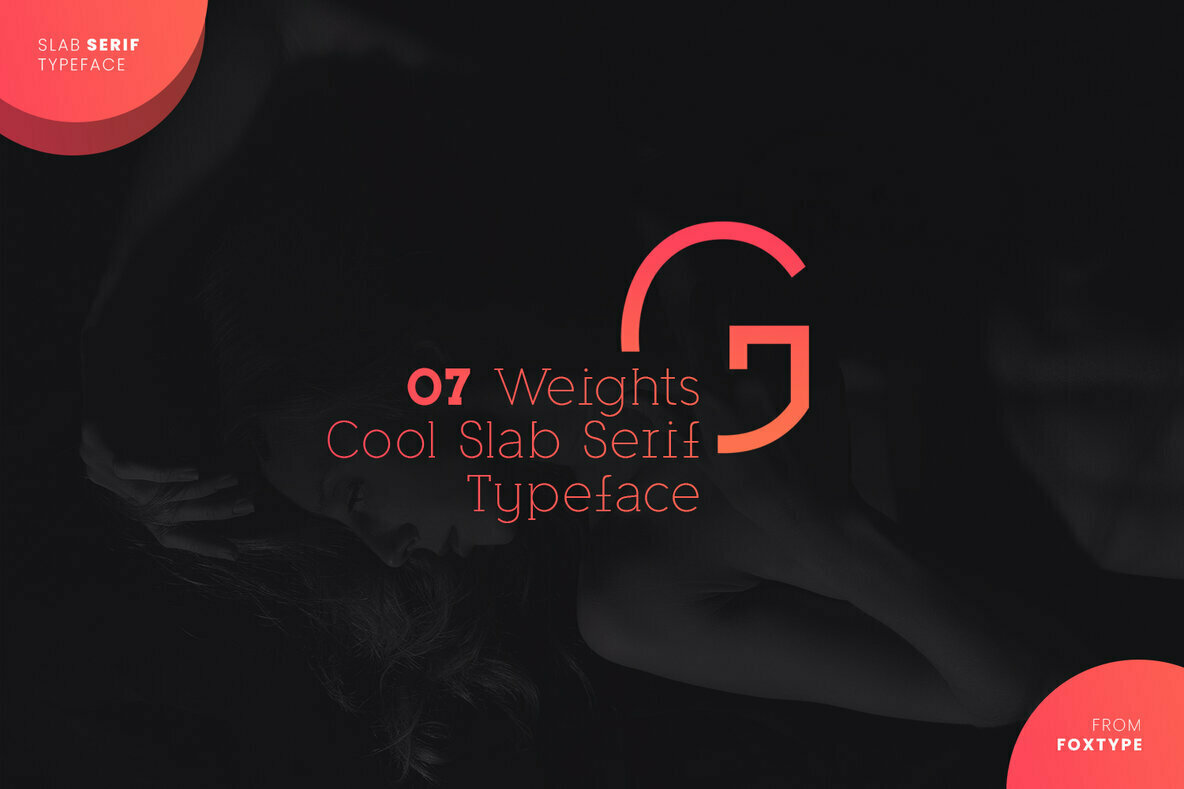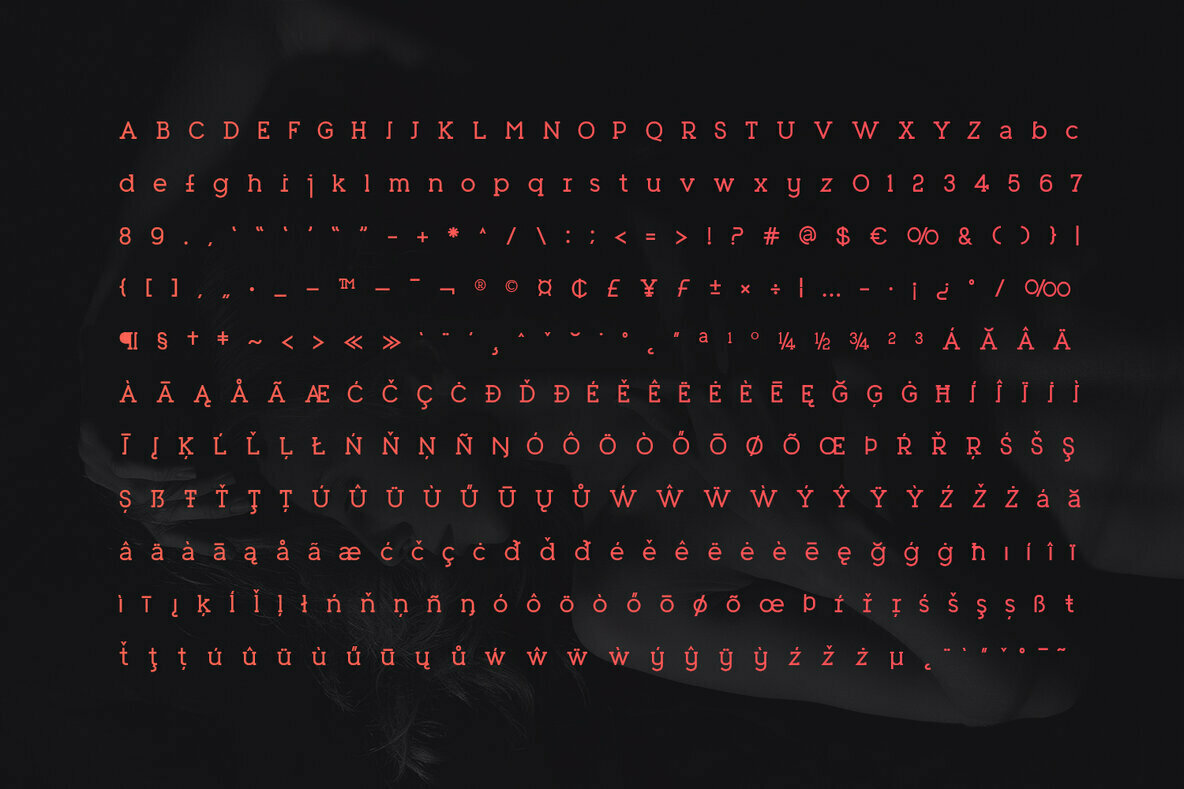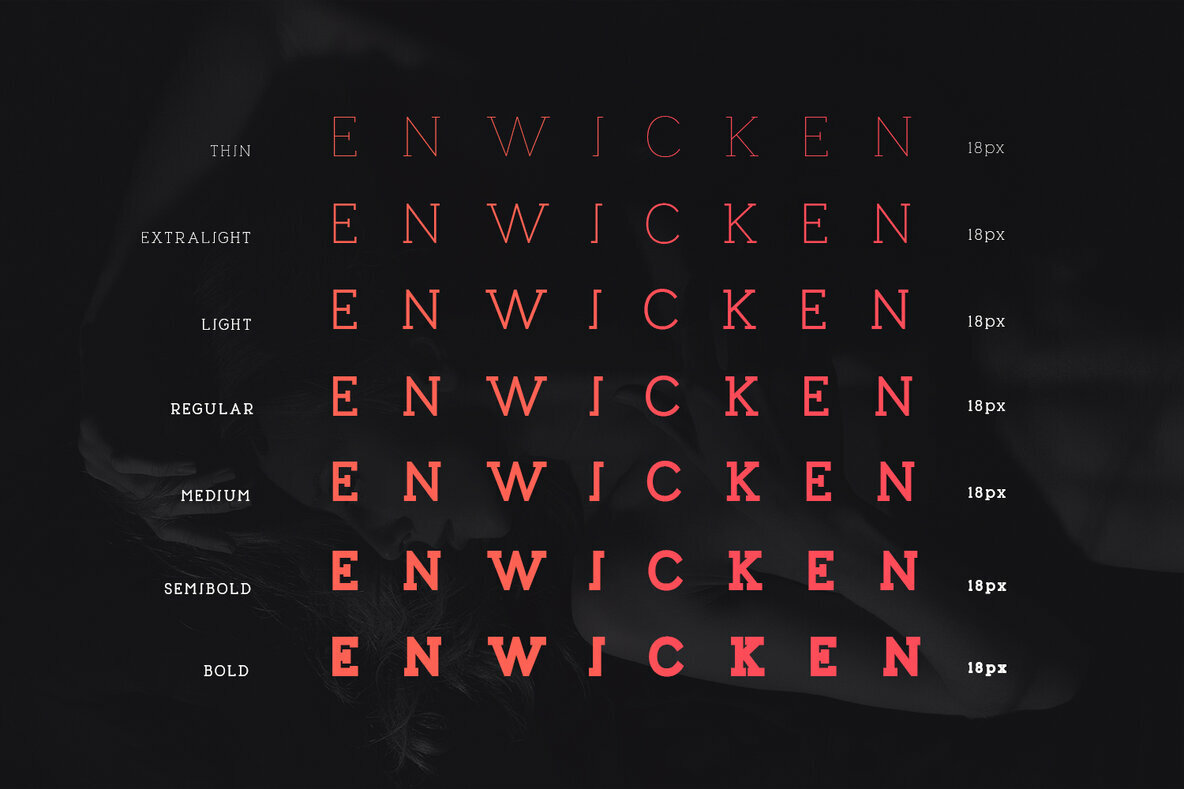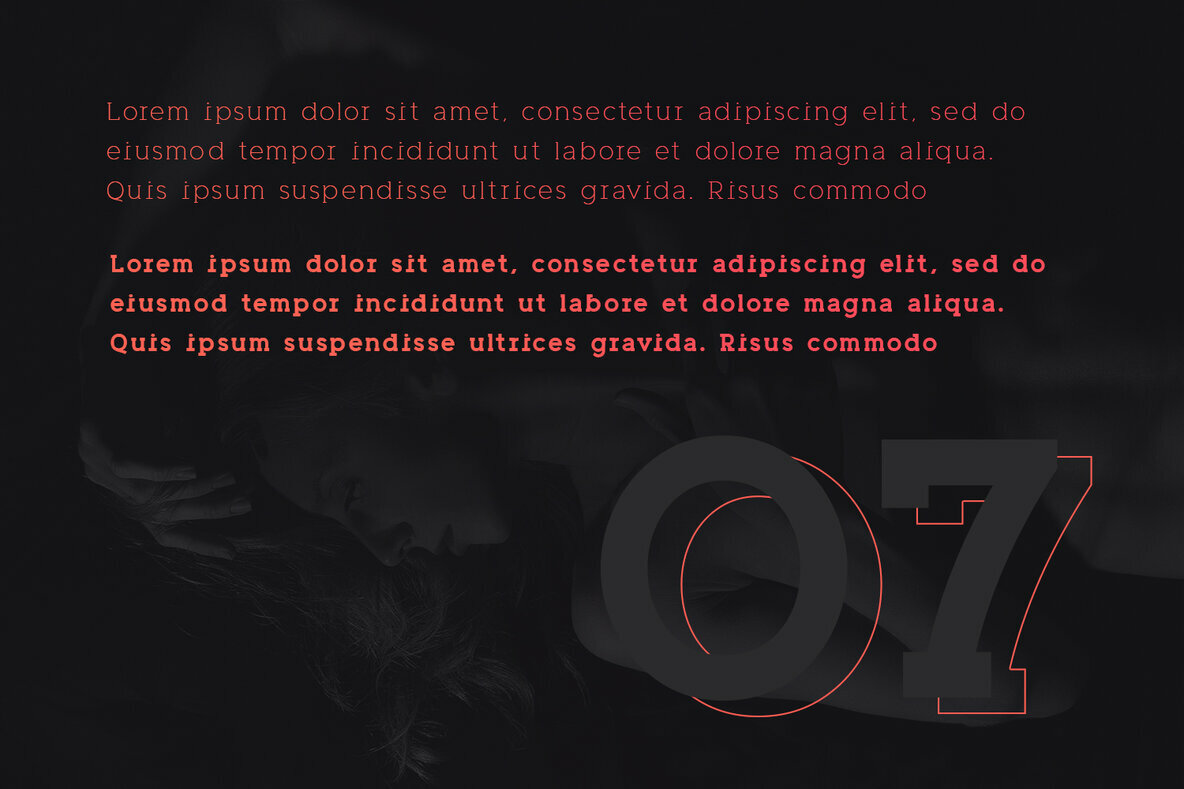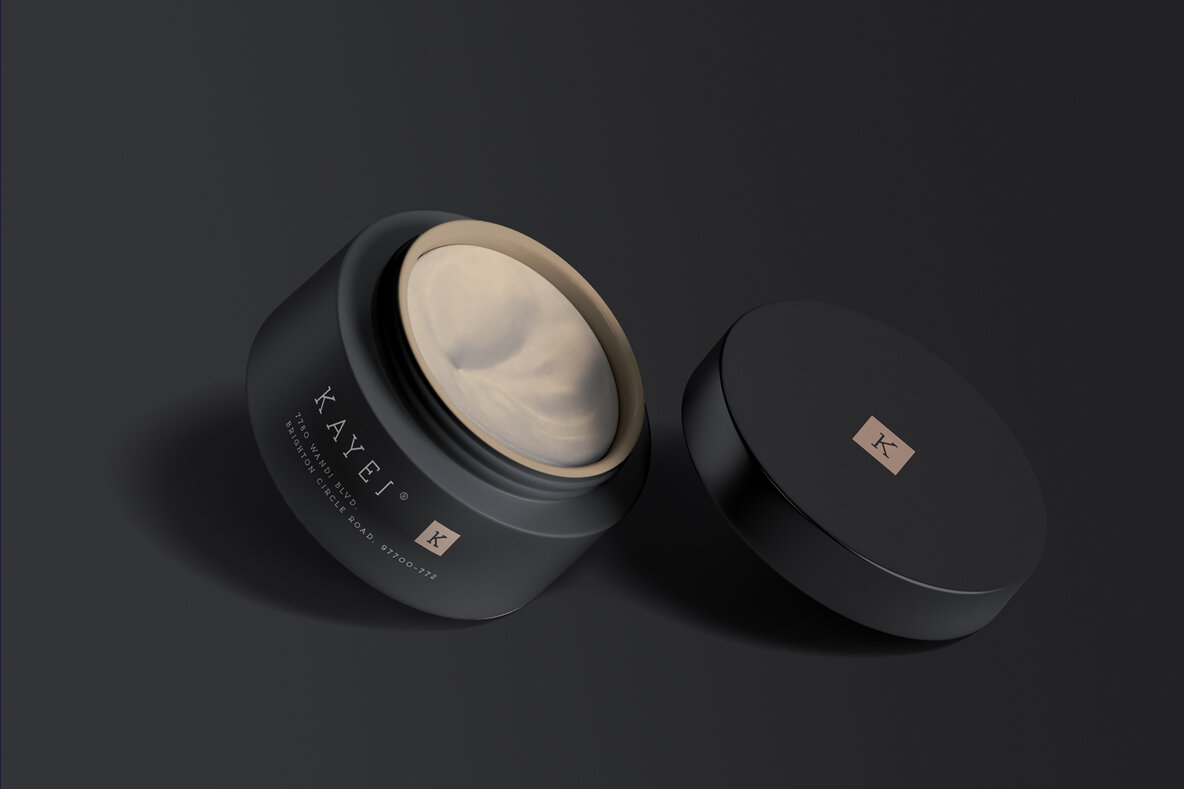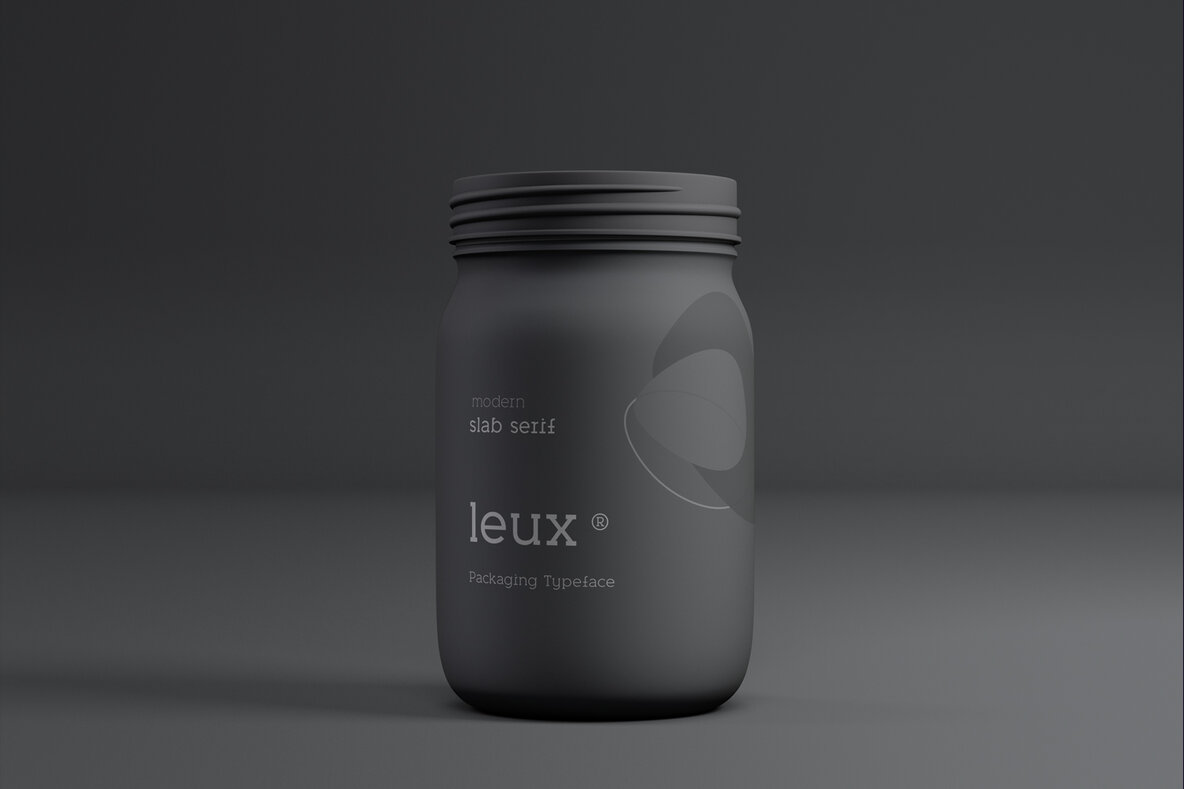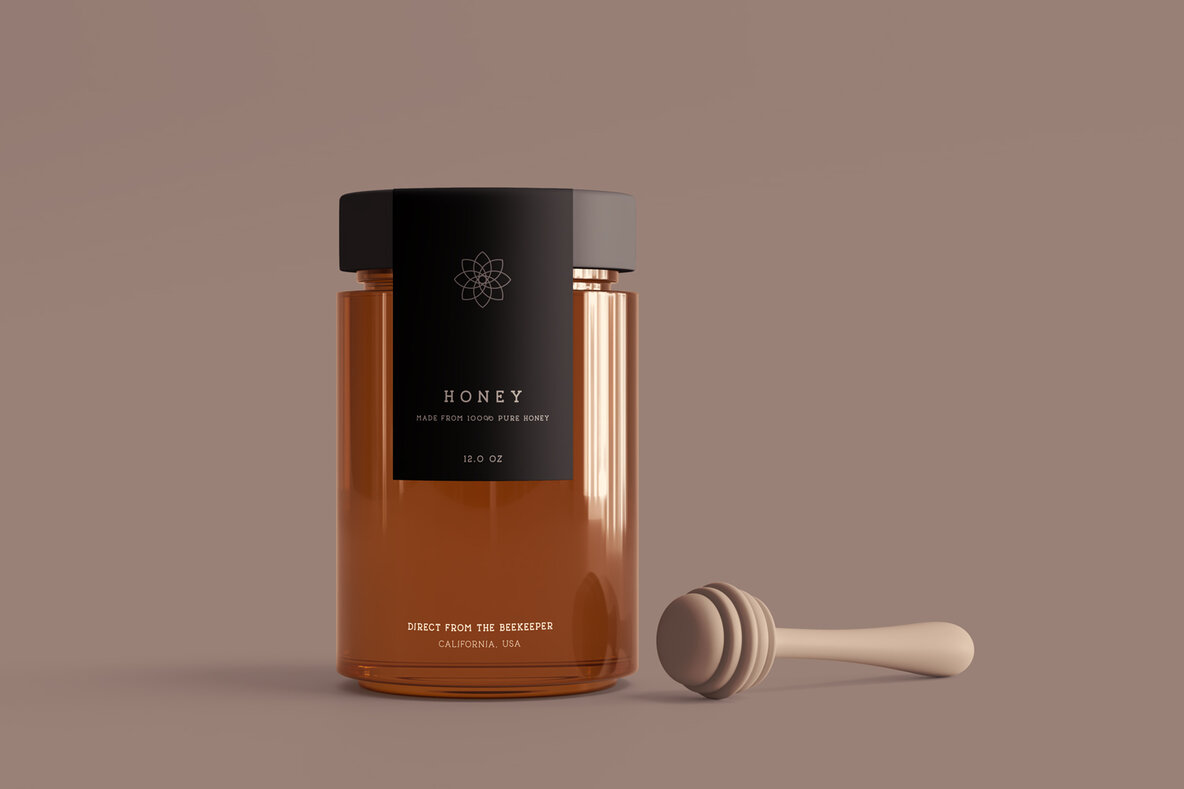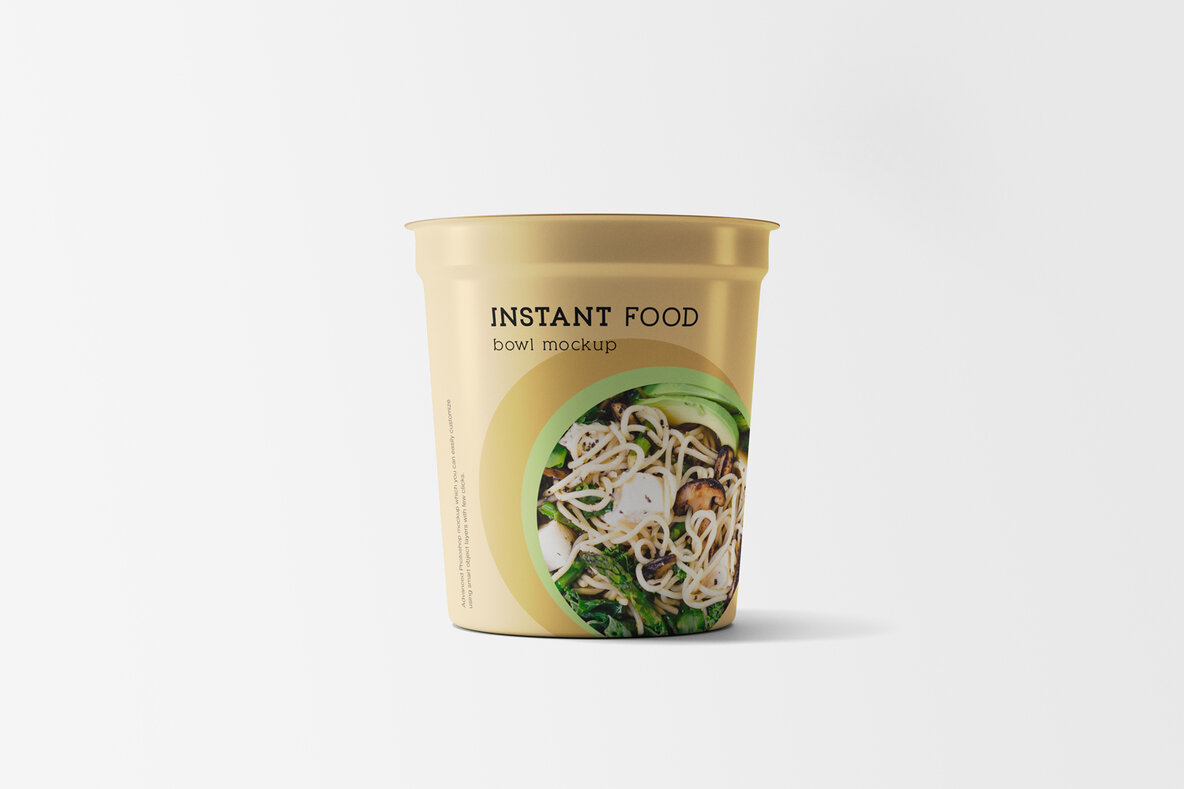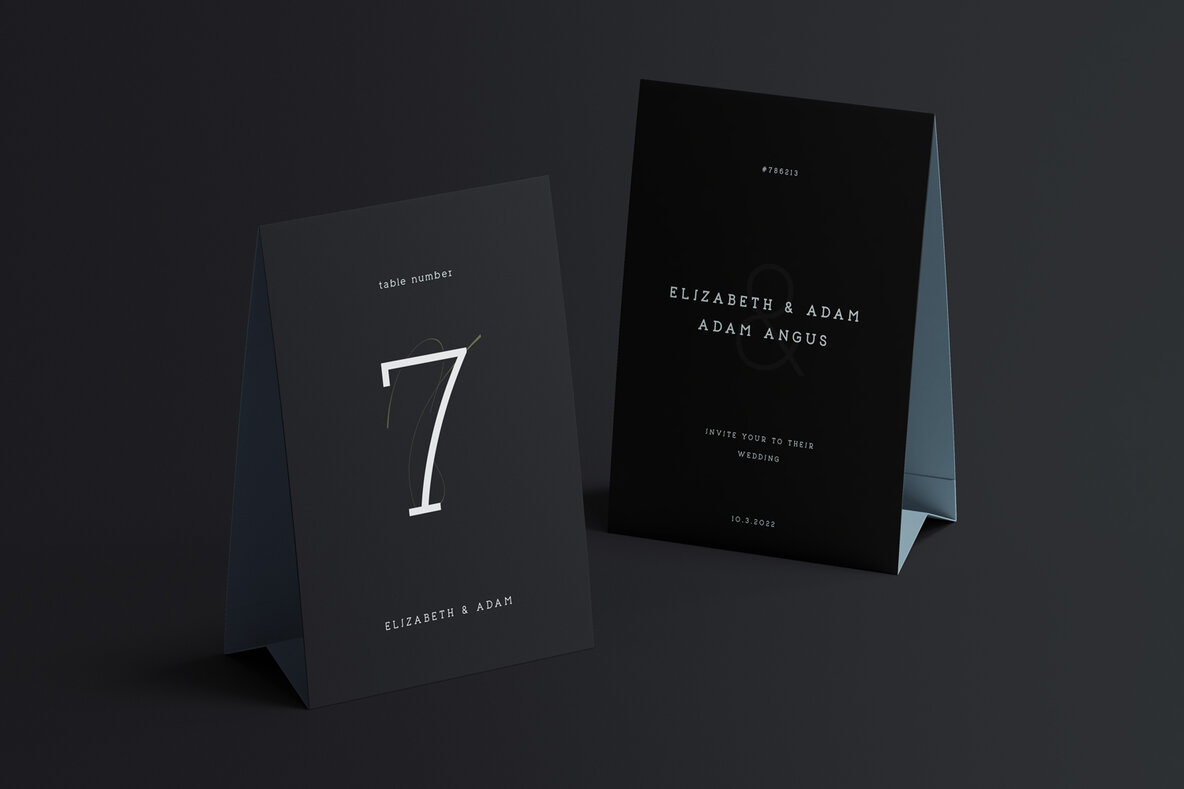
Enwicken Typeface Font
Enwicken is a modern and elegant typeface that would be perfect for branding, logos or movie posters. The various weights allow you to experiment with different applications while still maintaining its beauty without sacrificing readability!
The Typeface includes 07 weights - Thin, ExtraLight, Light, Regular, Medium, SemiBold, & Bold.